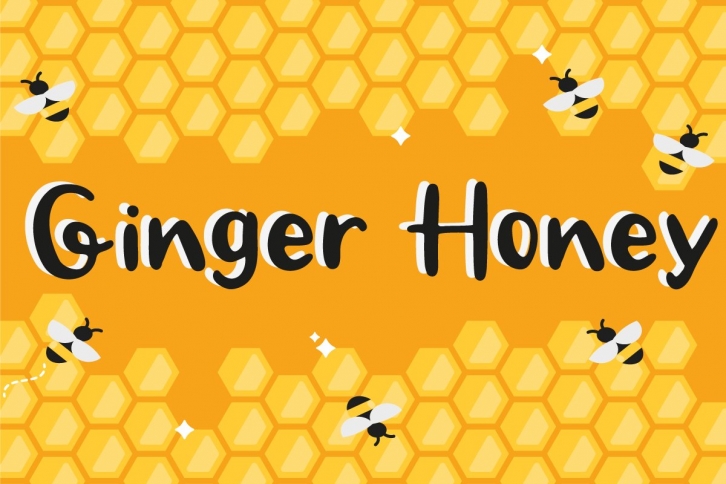
Ginger Honey -Handwritten Script is a great font that was designed by The Gelato. Imagine the amount of combinations you can create using this font! The archive is 2.92 MB and it was released on May 4, 2020. Ginger Honey -Handwritten Script looks beautiful on wedding invitations, greeting cards, logos, posters, labels, t-shirt designs, logos, business cards and is perfect for use in ink or watercolor works, fashion, magazines, packaging and food menus, children's books and more!